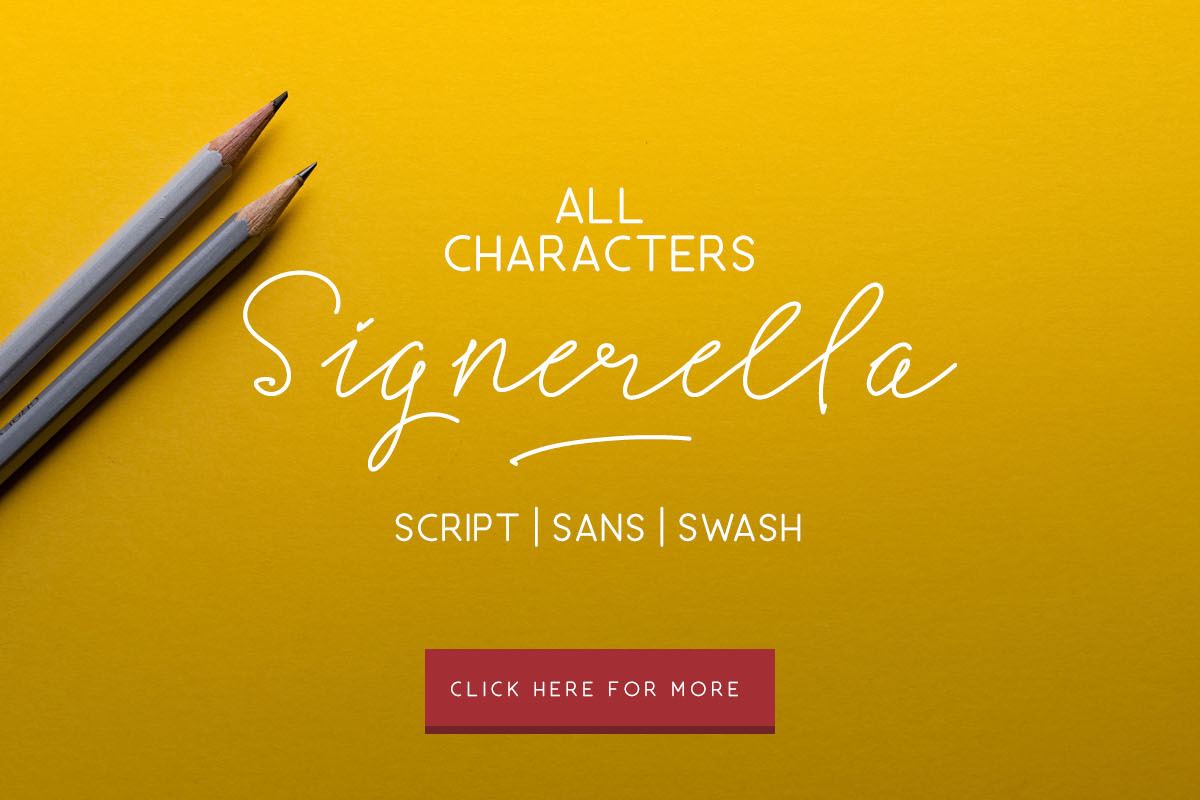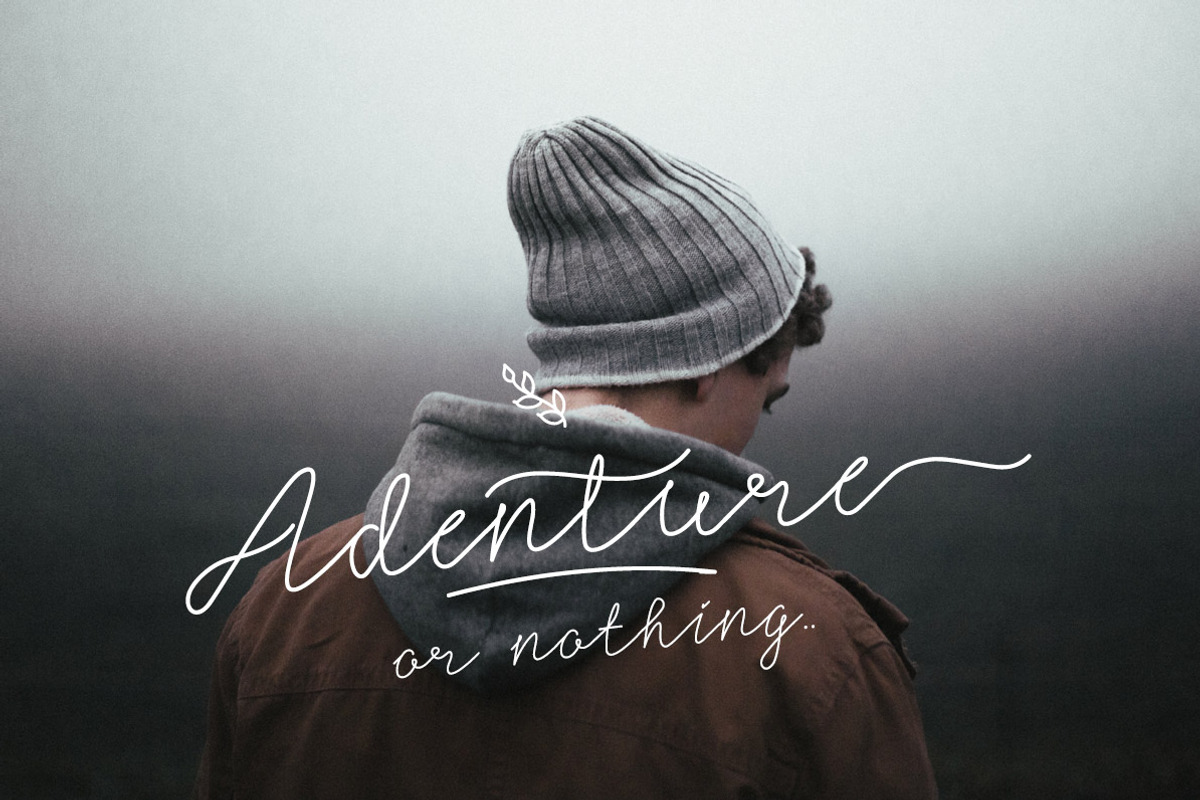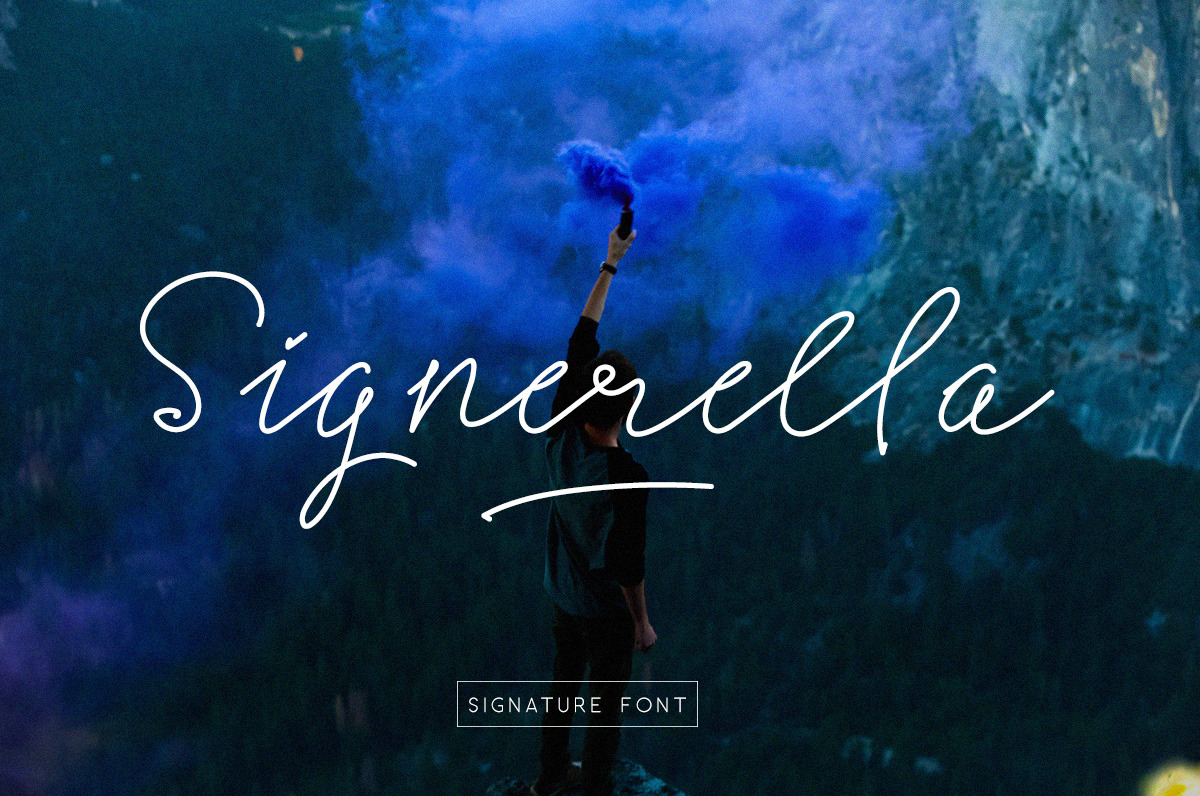
Signerella Font Duo
Introducing Signerella Font Duo! Inspired by manual hand writing signature, this font is carefully hand crafted to give the feels of original signature style script. This typeface has many features including symbol & punctuation, stylistic alternative, swashes, catchwords, doodle icons, also support multi language characters. It also including the Signerella Sans font type as a complementary font which is perfectly matched with the Signerella Script font. You can see the complete glyphs at the preview.